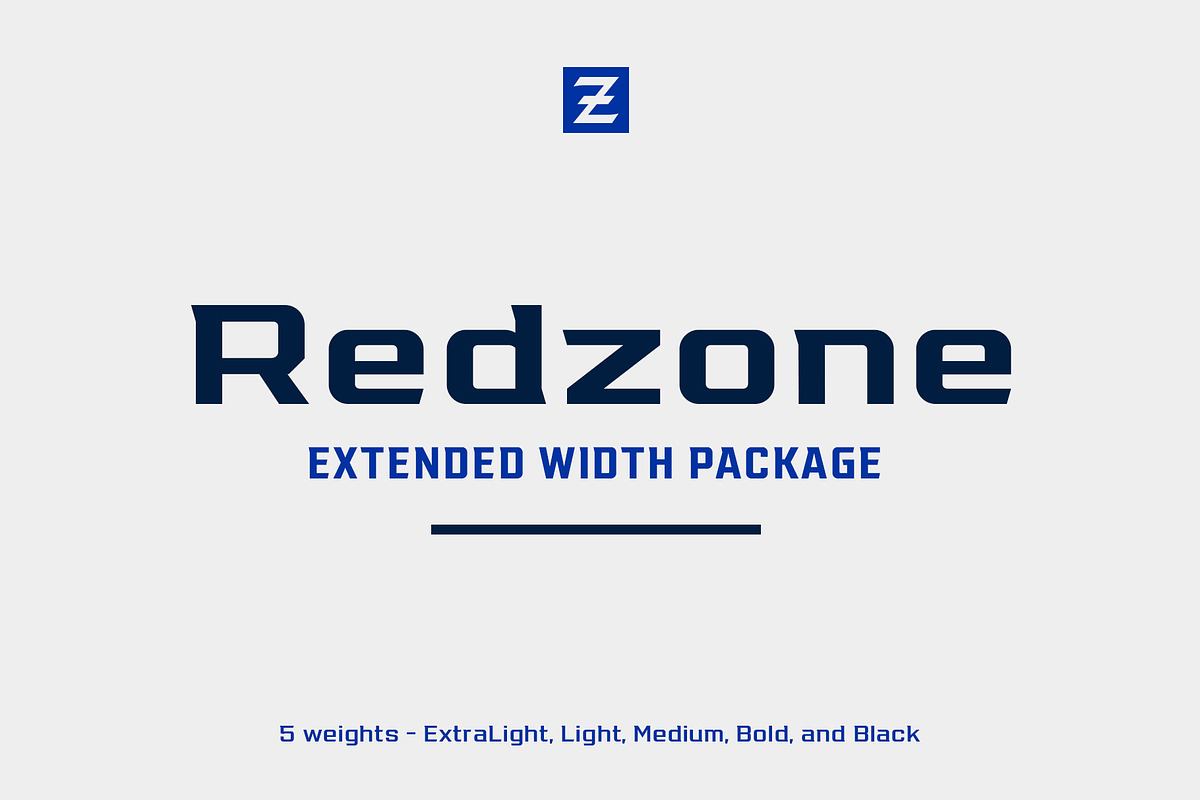
Redzone Display Font – Extended Free Download is a bold and futuristic typeface designed to deliver high impact in modern design projects. With its wide stance, sharp angles, and athletic energy, Redzone is perfect for sports branding, esports graphics, automotive design, tech logos, and dynamic headlines that demand attention.
Its extended letterforms enhance visibility and give off a strong, aggressive vibe—ideal for creating a commanding visual presence in both print and digital formats. Whether you’re designing for a competition, a product launch, or a bold brand identity, Redzone delivers a confident, cutting-edge look.